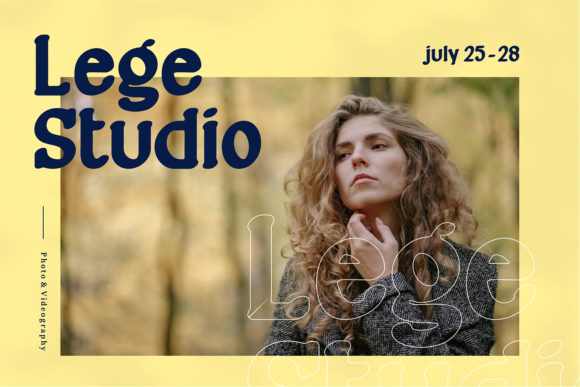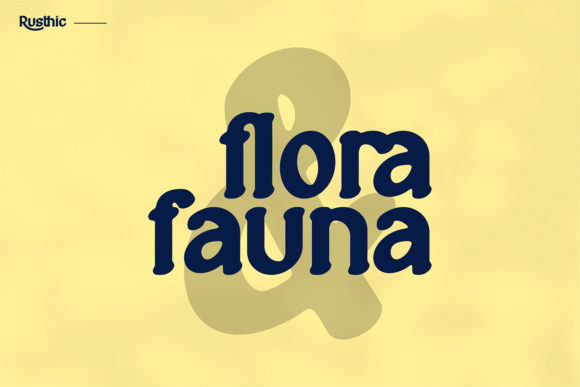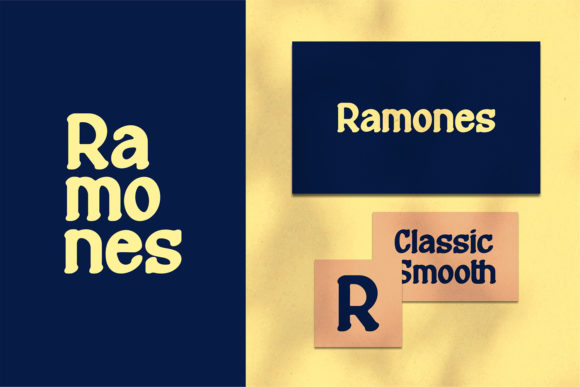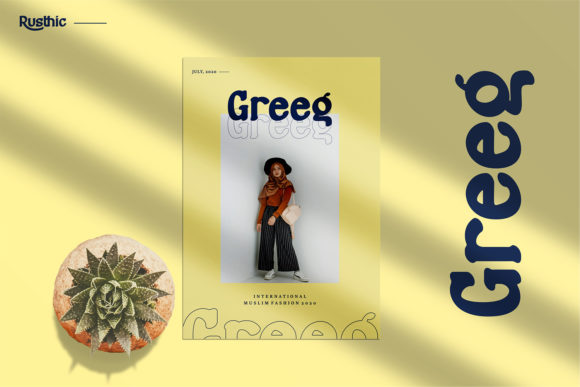
Introduction to Rusthic Font
Have you ever found yourself scrolling through social media, and a stunning graphic stops you in your tracks? For me, it was a beautifully crafted typography piece that caught my eye – a bold, handcrafted font that read like a breath of fresh air. As a designer, I’ve been searching for that perfect combination of charm and versatility, and I’m thrilled to share with you my latest discovery: the Rusthic Font.
This gorgeous display font is more than just a pretty face – it’s a valuable resource for designers looking to elevate their creative projects. Whether you’re working on a high-quality design for a client or simply want to add some personality to your personal projects, Rusthic Font is sure to deliver. With its casual, down-to-earth charm, it’s perfect for use on busy backgrounds or as a standalone headline, making it an ideal design resource for any creative project.
Key Features of Rusthic Font
- Unique, hand-drawn design with a natural, earthy feel, perfect for creative projects and designs with a rustic or vintage vibe.
- Designed to be versatile and easy to use, making it a valuable resource for designers and artists working on creative projects.
Honest Review: Rusthic Font
I recently had the chance to work with the Rusthic Font, and I must say it’s been a game-changer for my creative projects. ✨ The font is incredibly versatile and can be used for a wide range of designs, from modern to vintage styles.
- Creative Freedom: The Rusthic Font gives me the creative freedom to experiment with different designs and styles, which is exactly what I need for my projects.
However, I did encounter a few limitations while working with the Rusthic Font. ⚠️ The font can be a bit overwhelming for complex designs, and the font sizes may not be as customizable as I’d like.
Overall, I’m really impressed with the Rusthic Font. It’s a great addition to any designer’s toolkit, and I’d definitely recommend it to anyone looking for a high-quality, free font for their creative projects.
Tips for Getting the Most Out of Rusthic Font
For the best results, use Rusthic Font with a transparent background to create a seamless design. You can also experiment with different font sizes and styles to add depth and visual interest to your design project.
Rusthic Font is perfect for any creative project, from wedding invitations to business presentations. Its high-quality design and transparent background make it a great design resource for any project that requires a professional touch.
Alternatives to Rusthic Font
Alegreya Sans is a high-quality sans-serif font suitable for a wide range of creative projects, from editorial to advertising. Its clean lines and transparent background make it an excellent choice for designs that require a modern feel.
Use Alegreya Sans when you need a professional and elegant font for your design. It’s a great alternative to Rusthic Font as it offers a more modern and sleek look, while still maintaining a high level of readability.
Can I use the Rusthic Font with a transparent background?
Yes, the Rusthic Font supports transparent backgrounds, making it perfect for designs that require a subtle, layered look. To use the font with a transparent background, simply apply the font to your design and adjust the background color or image to achieve the desired effect.